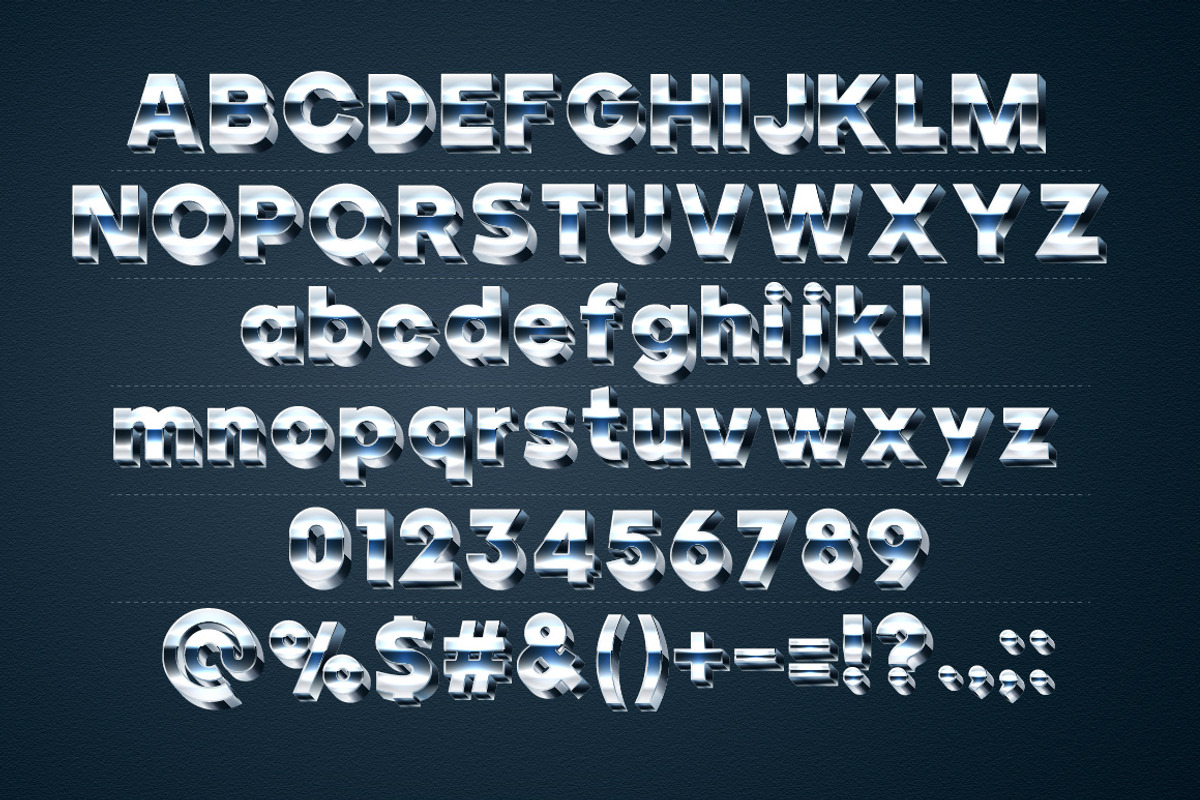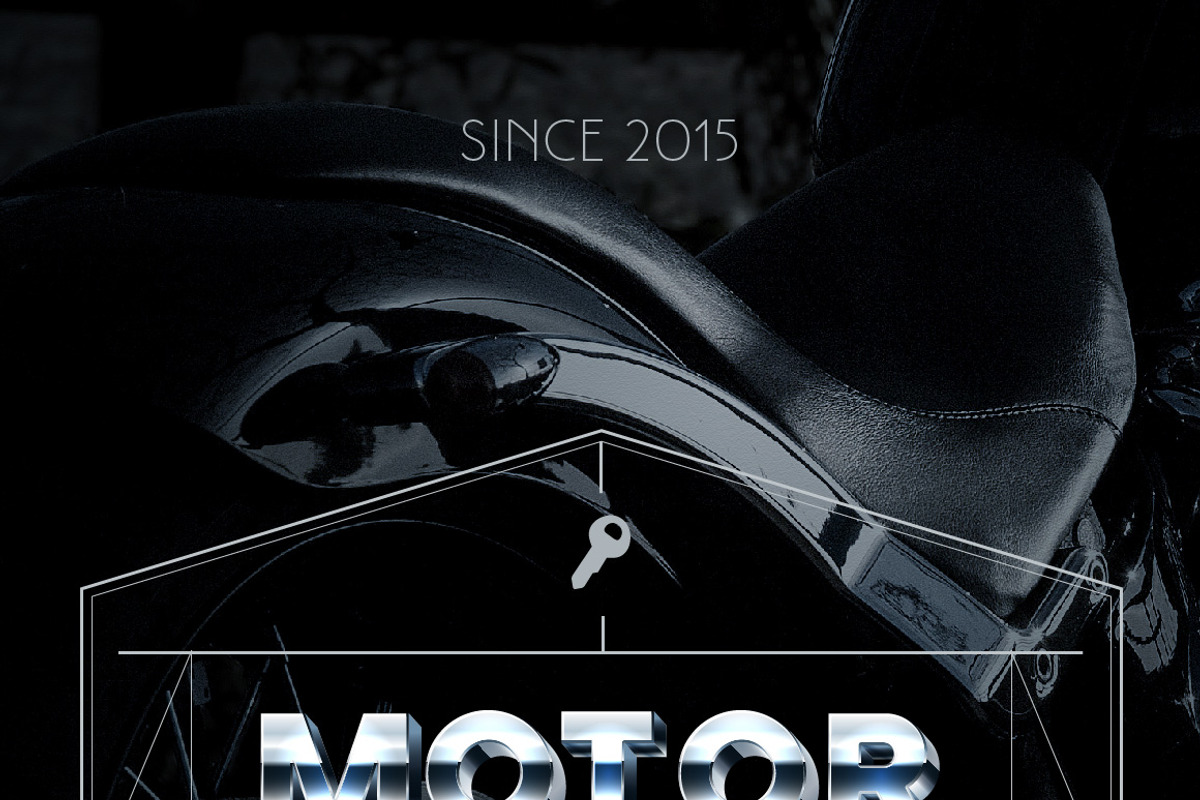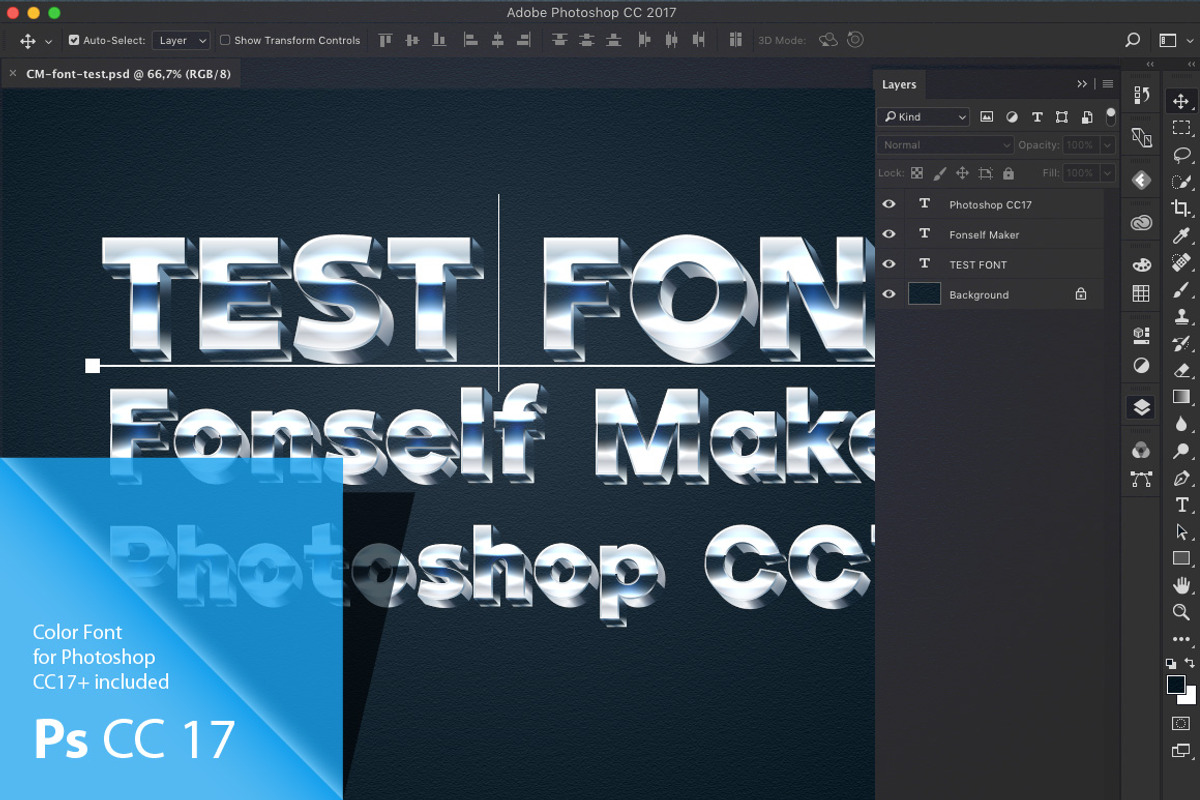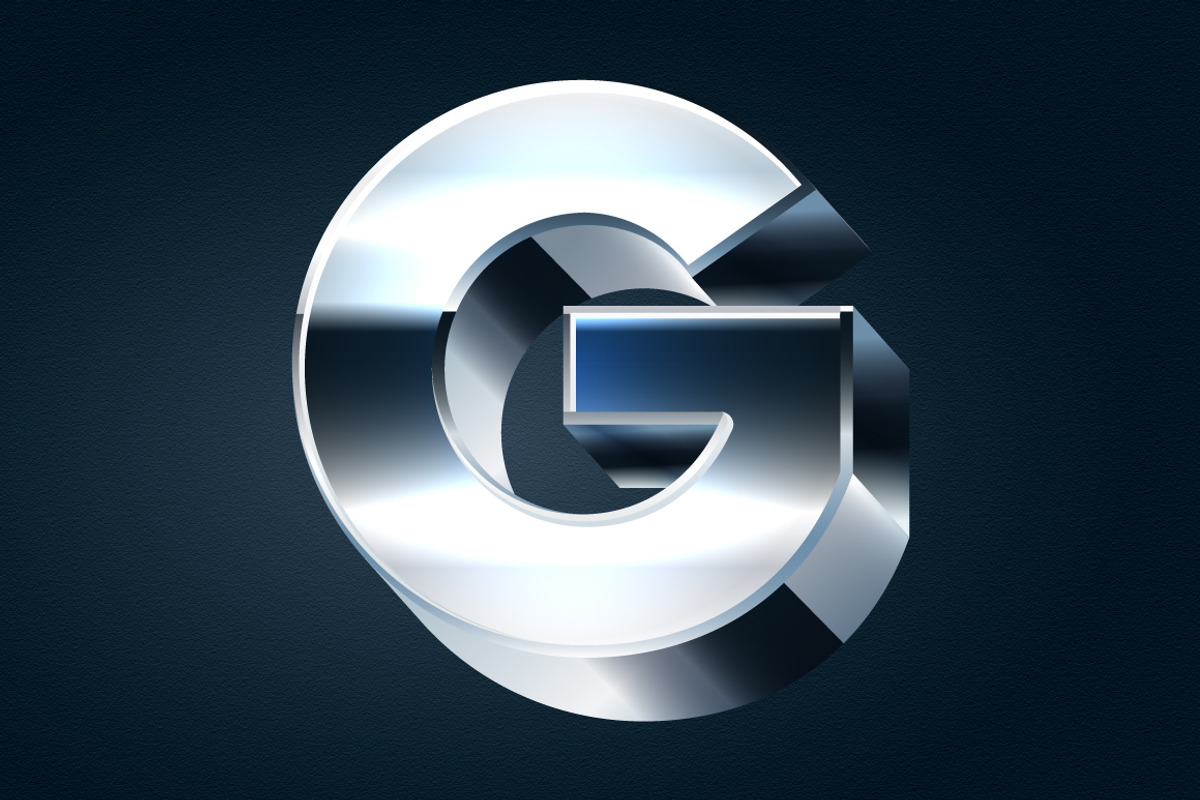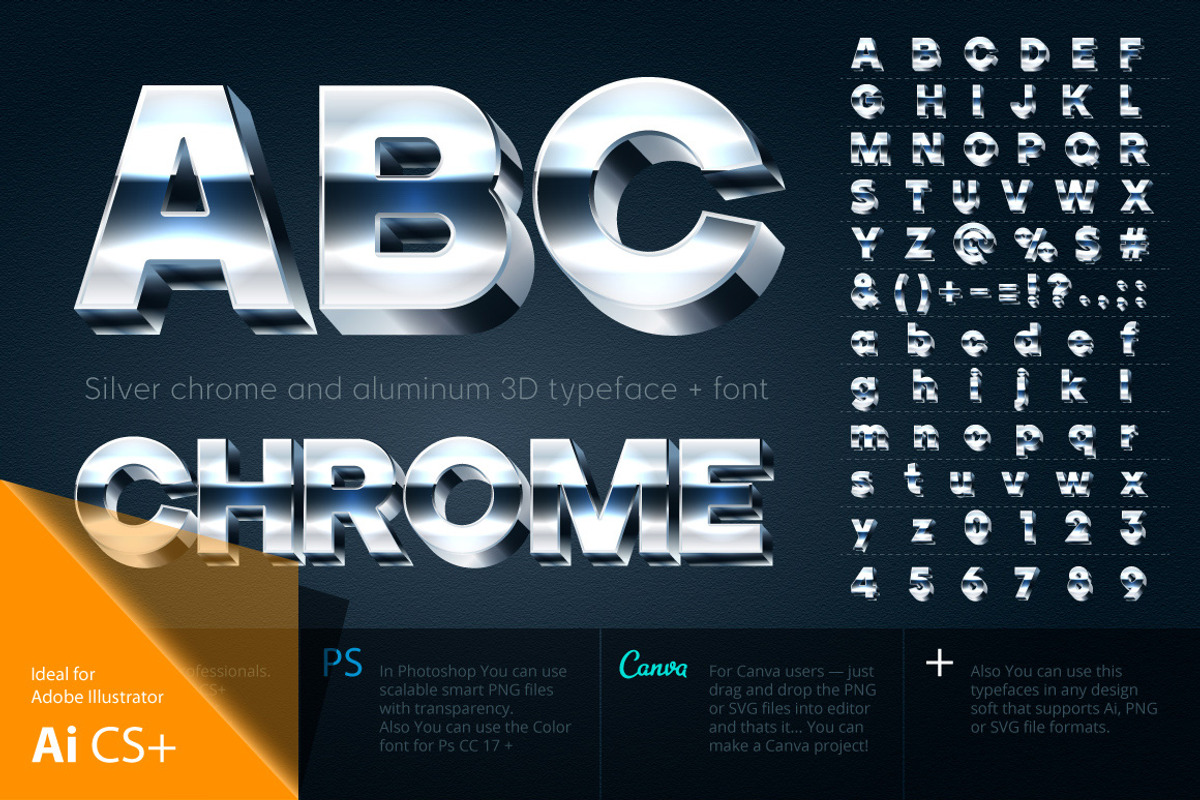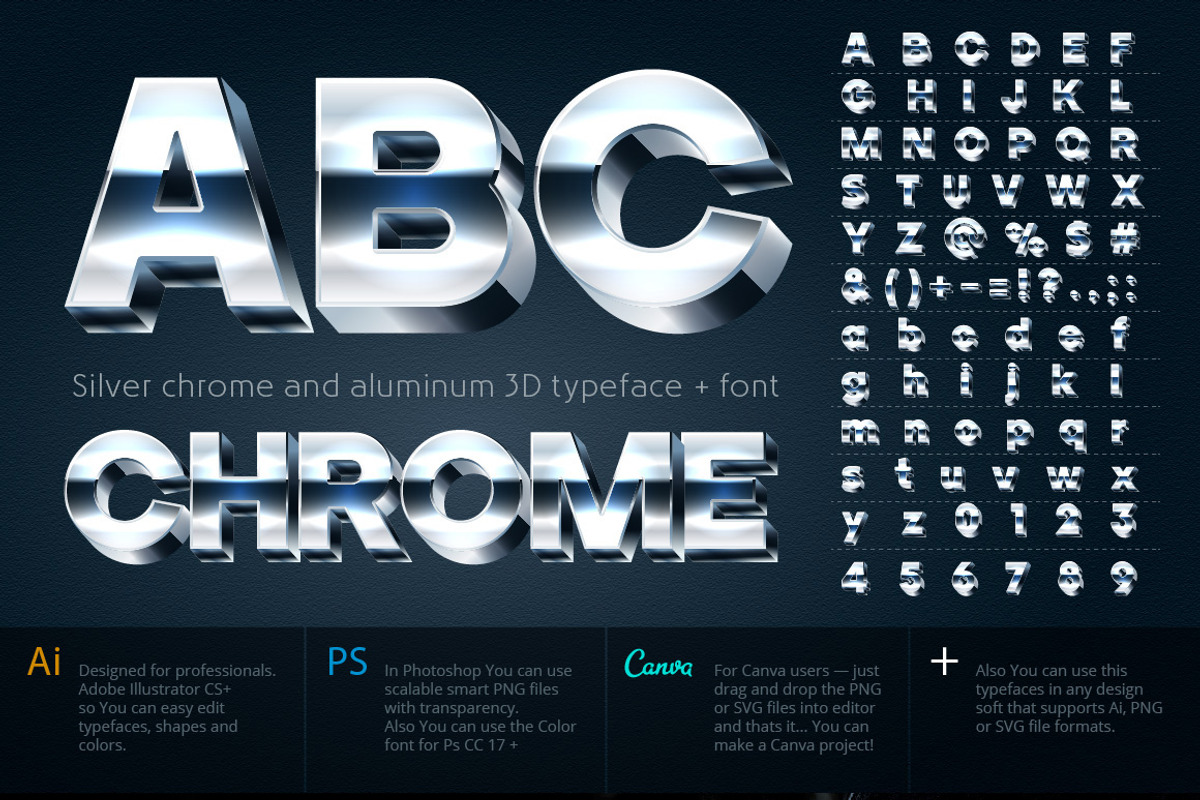
Silver chrome and aluminum 3D font
Vector letters for original typography
Why Silver chrome and aluminum 3D font is worth a look
Silver chrome and aluminum 3D font by popskraft fits naturally into Editorial graphics, posters, social visuals, brand projects.